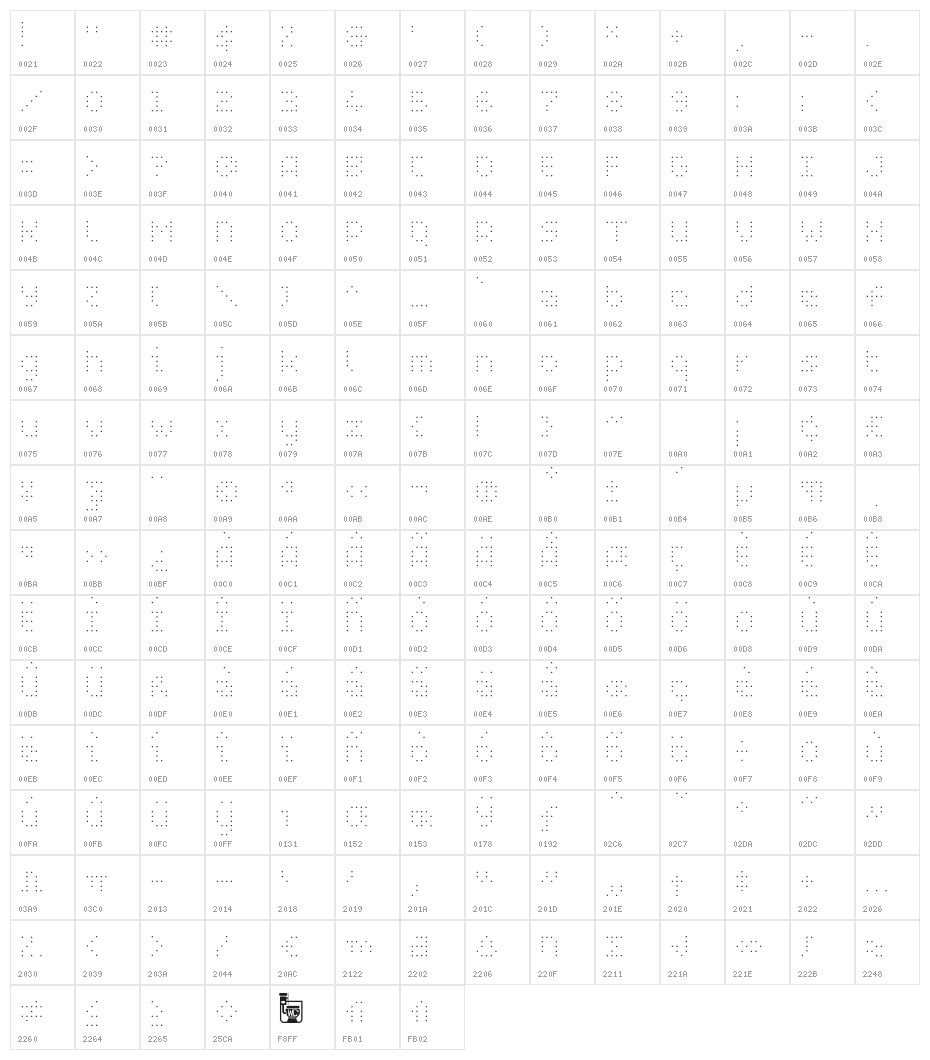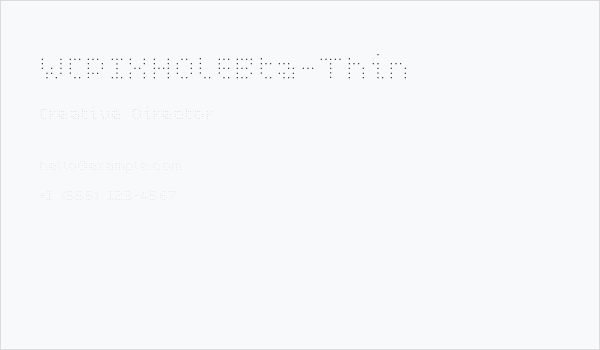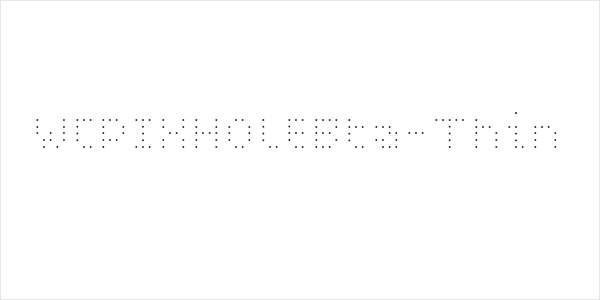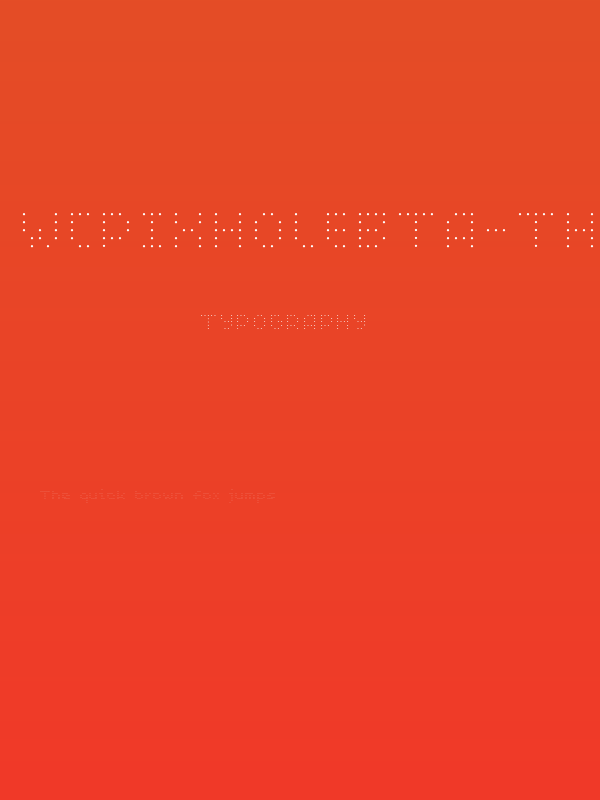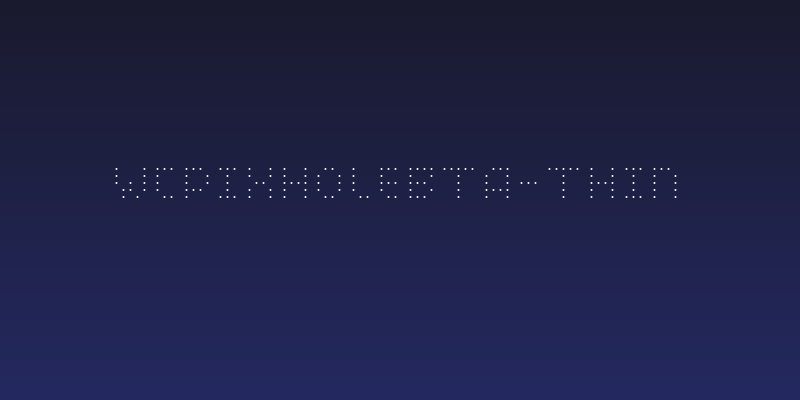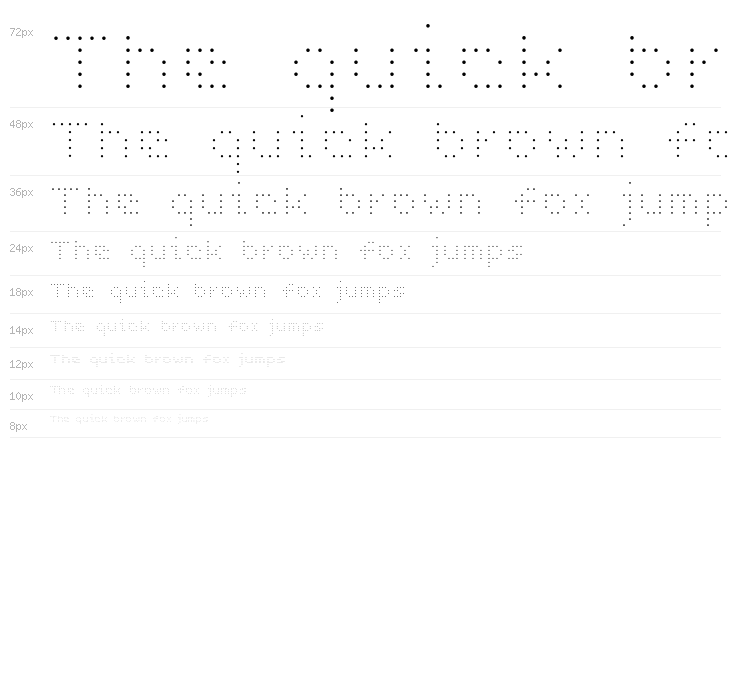
WCPIXHOLEBta-Thin Font
WCPIXHOLEBta-Thin Description
This font features a unique dot matrix style, creating characters entirely from small, evenly spaced dots. The design is minimalistic and modern, with each letter and number clearly defined by its dotted outline. The spacing between the dots is consistent, giving the font a uniform appearance. This style is reminiscent of digital displays or retro computer screens, offering a nostalgic yet contemporary feel. The font is legible and distinct, making it suitable for various creative applications.
Proposed ProjectsIdeal for digital displays, tech-themed designs, retro posters, and creative branding projects.